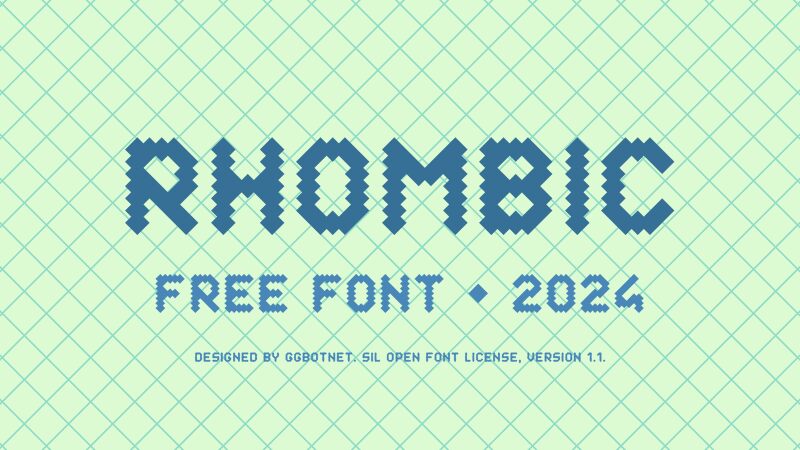
Rhombic
Rhombic font by GGBotNet is a geometric display font with thick, bold characters and decorative crosshatched patterns. Its artistic structure gives the font its stylized appearance that is clear and easy to read.
This versatile free display font can capture attention in branding, marketing, signage design, poster design, digital advertising graphics, magazines’ front covers or back pages’ advertisements, product packaging designs for electronics etc., innovative web/print editorials and e-commerce sites.